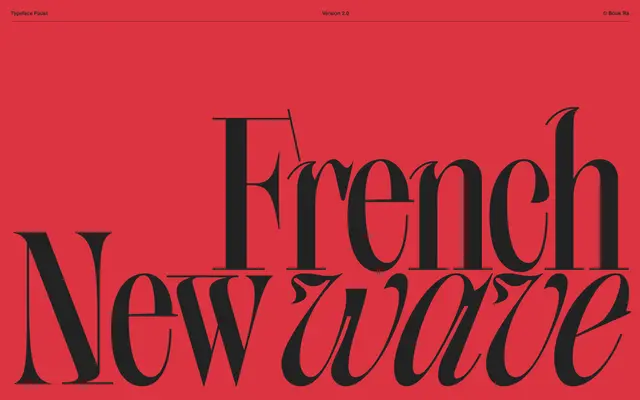
Faust
An experimental display typeface by Bouk Ra with deliberately deformed serifs and wide alternates, available in two named styles drawn from the Faust legend.
Designed by Bouk Ra, the family comes in two distinct styles, Wagner and Mephisto, each with a matching italic, giving four files in total. The deformed serifs and wide alternate characters create an uneven, theatrical rhythm suited to posters, editorial spreads and branding that needs an overtly dark or literary register. A glyph set of 450 includes ligatures, fractions, four stylistic alternate sets and broad Latin Extended diacritic coverage.
Faust features deliberately deformed serifs and dramatic, wide alternates, placing it firmly in the display category with an experimental serif structure drawn for expressive, editorial use rather than text settings.